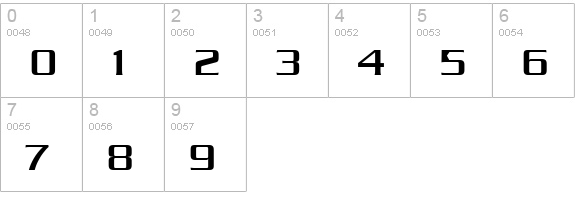
Chaney Normal Font Details
Chaney Normal is the standard, neutral variant in the Chaney typeface family \xE2\x80\x94 well suited to general body text, paragraphs, and standard typographic work.
Chaney Normal is a modern and sleek font that exudes simplicity and elegance. Its clean lines and balanced design make it perfect for a wide range of projects, from branding to editorial design. With its versatility, Chaney Normal can easily adapt to various styles and purposes, making it a valuable addition to any designer's toolkit. What sets Chaney Normal apart is not just its aesthetic appeal, but also its accessibility. This font is available for free download at FontsMarket.com, allowing designers of all levels to access and utilize it in their projects without any cost. Whether you're working on a personal project or a client's design, Chaney Normal offers a professional and polished look that will elevate your work to the next level. Embrace the elegance and simplicity of Chaney Normal, and bring a touch of sophistication to your designs today. Download this versatile font for free at FontsMarket.com and unlock endless creative possibilities.